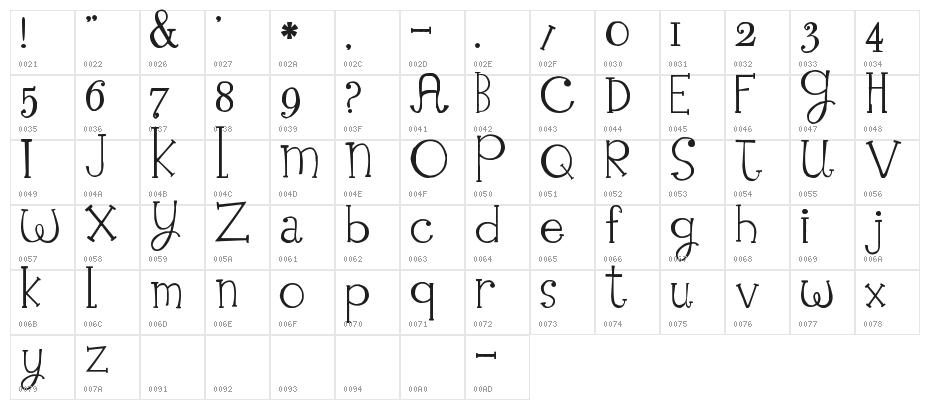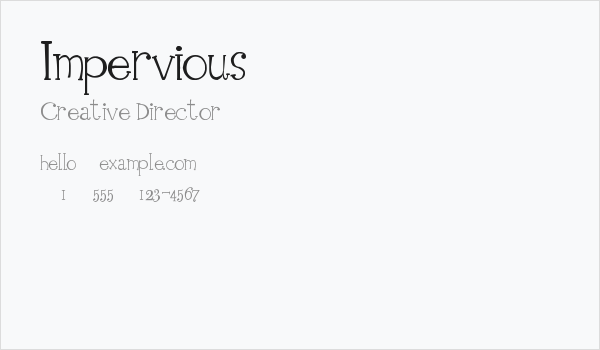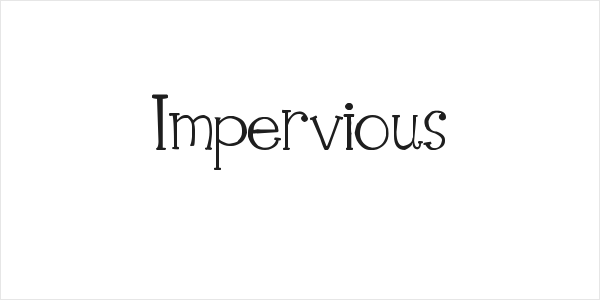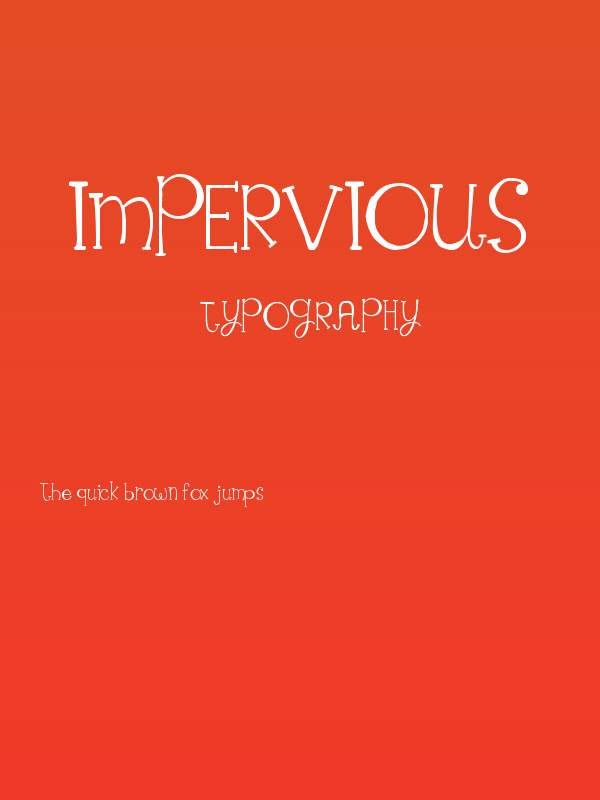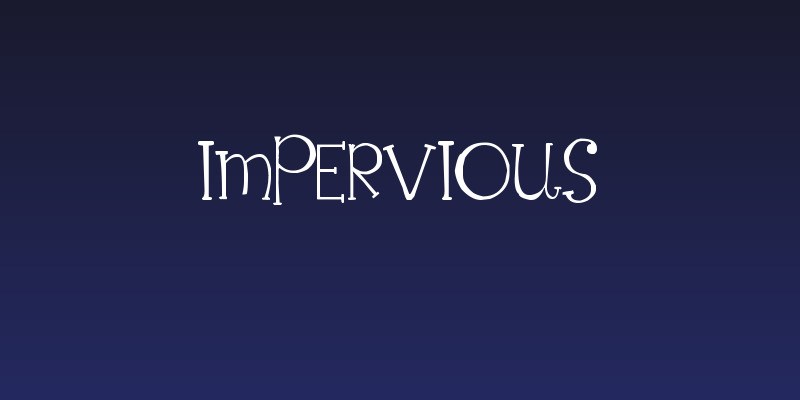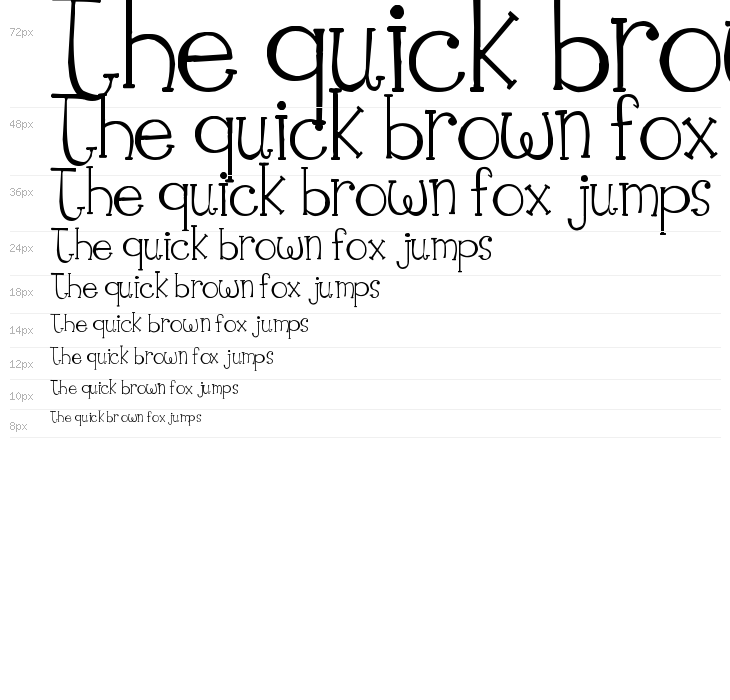
Impervious Font
Impervious Description
This font features a playful and whimsical design with a unique combination of both serif and script elements. The uppercase letters exhibit a distinct flair with elongated strokes and subtle curves, while the lowercase letters maintain a more consistent and rounded appearance. The numerals are bold and slightly decorative, adding to the font's charm. Special characters are creatively styled, enhancing the overall quirky and artistic feel. The font's balance between elegance and playfulness makes it versatile for various creative projects.
| Overall Style | Playful, Artistic |
| Proposed Projects | Ideal for children's books, greeting cards, playful branding, and artistic posters. |